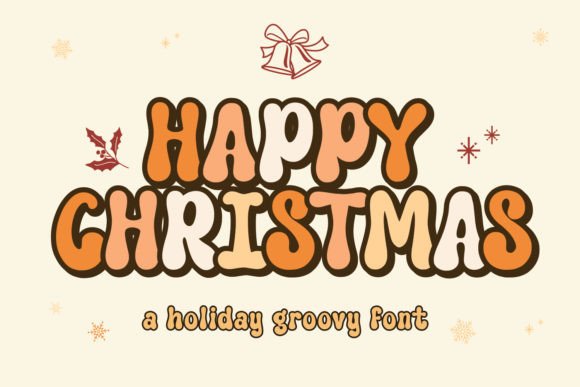
Happy Christmas Font
Happy Christmas is a charming and whimsical font that embodies the essence of a cute and groovy celebration of the Christmas season and all its associated themes. This playful font is a perfect choice for festive occasions, from the winter wonderland of Christmas to the colorful crafts of spring, the cozy vibes of autumn, and the joyful arrival of the new year.